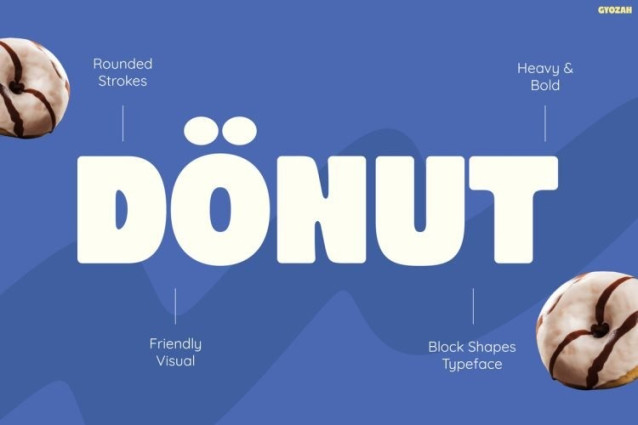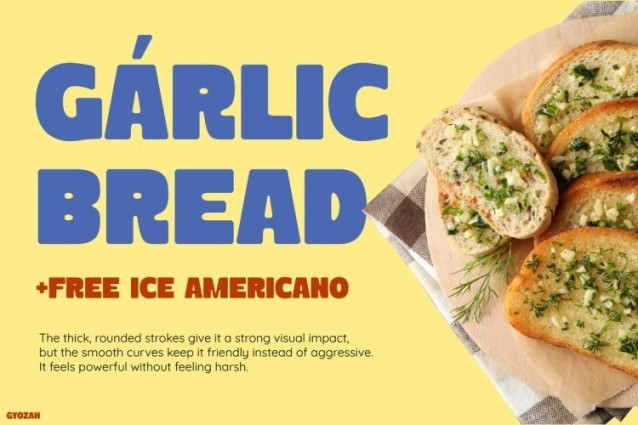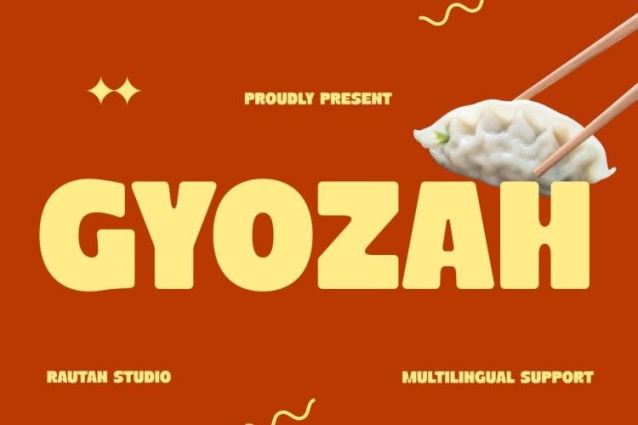
Gyozah Font
Gyozah Font is a bold, chunky display font with a friendly, rounded personality. Its heavy, blocky letterforms sit tightly together, creating a strong visual presence that feels warm and approachable rather than aggressive. The subtle retro undertones give it a playful 70s and 80s aesthetic while remaining clean and modern.
Best suited for food packaging, restaurant menus, cafe signage, and culinary branding, this typeface excels in headlines and logos. Its thick strokes and soft curves make it a natural fit for eye-catching posters, product labels, social media graphics, and promotional banners where a friendly, high-impact tone is needed.